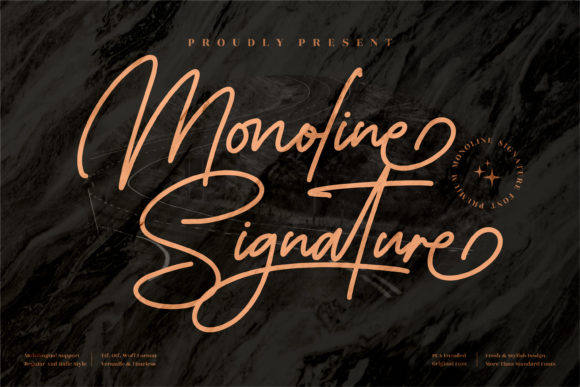
In a digital realm saturated with uniformity, Monoline Signature emerges as a breath of fresh air, a font that captures the essence of individuality and artistry. Its elegant strokes, reminiscent of a calligrapher's quill, evoke a sense of timeless sophistication that will elevate your designs to new heights.
Crafted with precision and care, Monoline Signature embodies the allure of simplicity, allowing the beauty of your words to shine through. Its delicate hairlines dance across the page, creating a visual symphony that captures the eye and captivates the heart. Whether it's a rustic wedding invitation, an enchanting logo, or a heartfelt letter, Monoline Signature promises to add a touch of magic to your creative endeavors.
Immerse yourself in the world of Monoline Signature, where imagination knows no bounds. Let your creativity flow freely as you explore the endless possibilities this font presents. Its versatility extends from formal invitations to whimsical branding, from heartfelt messages to captivating social media posts. With Monoline Signature as your creative companion, your designs will radiate with a timeless elegance that will leave a lasting impression.
Dare to embrace the extraordinary and let Monoline Signature ignite your artistic passion. Its graceful lines and effortless charm will transform your designs into captivating masterpieces, leaving your audience spellbound. Embrace the power of individuality and let Monoline Signature guide you towards creative greatness.